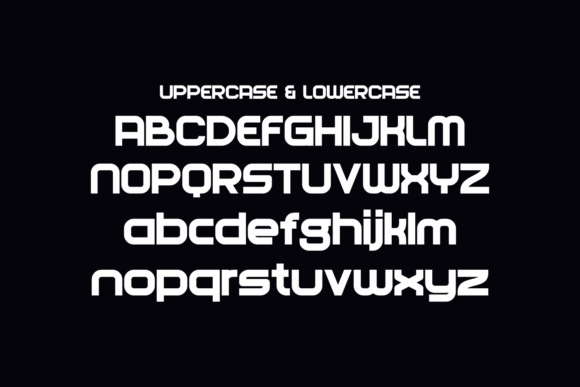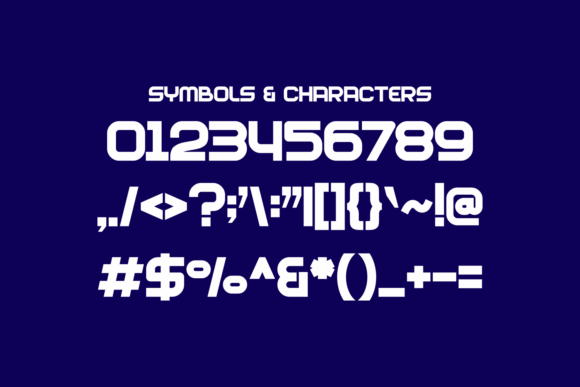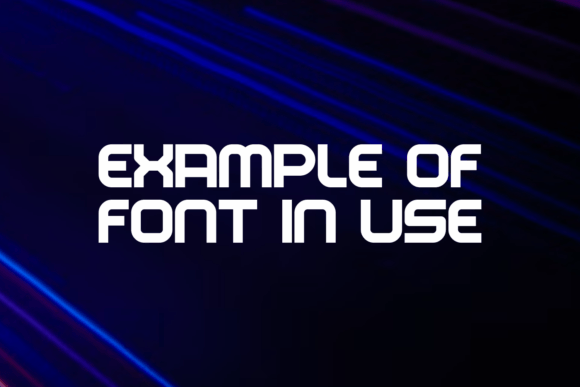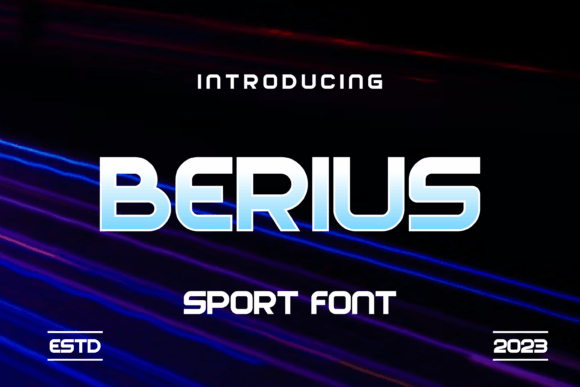
Berius Font: The Quirky Sports Display Font You Need
Berius is a unique and interesting sports display font that has been making waves in the design community. A little bit quirky, this font looks incredibly adept on a wide variety of contexts, making it a versatile addition to any designer’s toolkit. In this article, we’ll dive into the world of Berius Font, exploring its features, uses, and benefits for designers and crafters alike.
What is Berius Font?
Berius Font is a sports display font that boasts a distinctive and eye-catching style. Its quirky design makes it stand out from more traditional fonts, giving it a unique personality that’s sure to grab attention. The font’s creator aimed to craft a typeface that would be both fun and functional, and they’ve succeeded in creating a font that’s perfect for a wide range of applications.
Key Features of Berius Font
- Unique and quirky design: Berius Font’s unusual style sets it apart from other sports display fonts, making it perfect for designers looking to add some personality to their work.
- Highly versatile: This font looks great in a variety of contexts, from sports team logos and branding to posters, flyers, and digital media.
- Easily readable: Despite its quirky design, Berius Font is surprisingly easy to read, making it a great choice for headlines, titles, and other display text.
- Customizable: Berius Font comes with a range of customization options, allowing designers to tailor the font to their specific needs.
Uses for Berius Font
Berius Font is an incredibly versatile typeface, and its uses are limited only by your imagination. Here are a few ideas to get you started:
- Sports team logos and branding: Berius Font’s sports-themed design makes it a natural fit for sports teams, leagues, and events.
- Posters and flyers: This font’s bold, eye-catching style makes it perfect for posters, flyers, and other promotional materials.
- Digital media: Berius Font looks great on digital platforms, including social media, websites, and online advertising.
- Merchandise: Use Berius Font to create custom merchandise, such as t-shirts, hats, and other apparel.
Berius Font offers a range of benefits for designers and crafters, including:
- Instant recognition: Berius Font’s unique design makes it instantly recognizable, helping your work to stand out in a crowded design landscape.
- Time-saving: With Berius Font, you can create professional-looking designs in no time, thanks to its easily readable and highly customizable design.
- Increased creativity: Berius Font’s quirky style can help spark your creativity, inspiring you to try new and innovative design approaches.
Tips for Using Berius Font
To get the most out of Berius Font, here are a few tips to keep in mind:
- Experiment with different sizes and colors: Berius Font looks great in a range of sizes and colors, so don’t be afraid to experiment and find the perfect combination for your design.
- Pair with complementary fonts: Berius Font pairs well with a range of other fonts, so try combining it with complementary typefaces to create a unique and visually appealing design.
- Use it sparingly: While Berius Font is a versatile typeface, it’s best used sparingly to avoid overwhelming the viewer. Use it for headlines, titles, and other display text to create a bold and eye-catching design.
Berius Font is a unique and interesting sports display font that’s perfect for designers and crafters looking to add some personality to their work. With its quirky design, high versatility, and easily readable style, Berius Font is an excellent addition to any designer’s toolkit. Whether you’re creating sports team logos, posters, or digital media, Berius Font is sure to help your work stand out in a crowded design landscape.